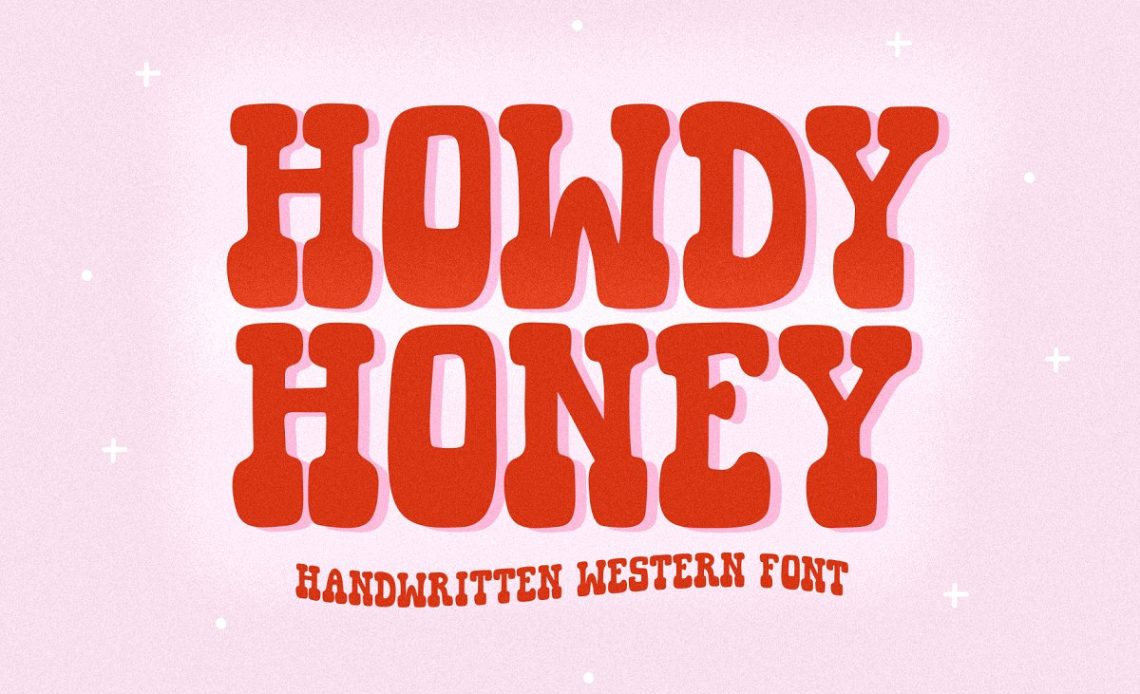
Looking to add some old-school flair to your next project? Meet Howdy Honey, the Retro Western Font that's sure to leave an impression. Created by Kaitlynn Albani, this handwritten font is perfect for adding a touch of the Wild West to your designs.
Howdy Honey is more than just a font - it's a complete western design toolkit. In addition to letters and numbers, this font also includes four unique images: a cactus, bull skull, boot, and hat. With these images at your disposal, you can create logos, graphics, and more that truly capture the essence of the West.
But what really sets Howdy Honey apart is its versatility. This font works just as well for creating logos and graphics as it does for crafting witty social media posts or eye-catching advertisements. And with both OTF and TTF files included, it's easy to get started no matter what software you use.
Whether you're creating western graphic tees, stickers, quotes, sports team or city shirts, or anything in between, Howdy Honey is the perfect font for the job. So why settle for a generic font when you can add some personality and style to your designs with Howdy Honey? Download now and start creating!